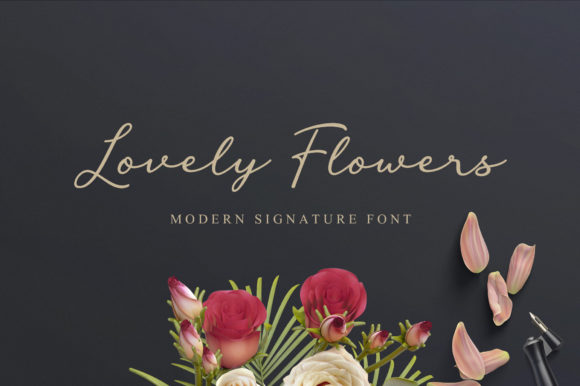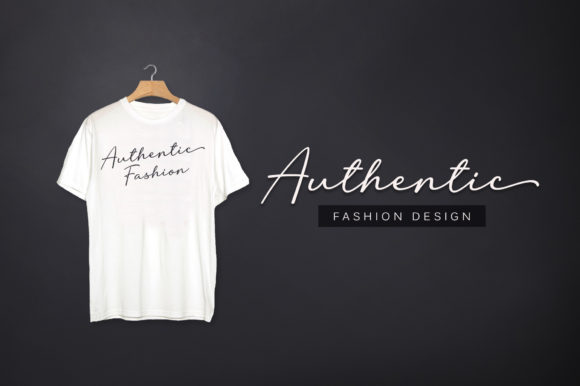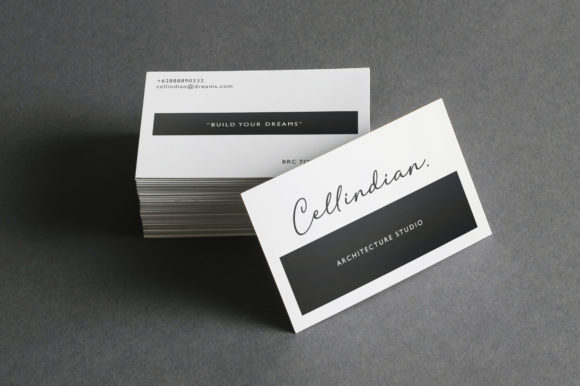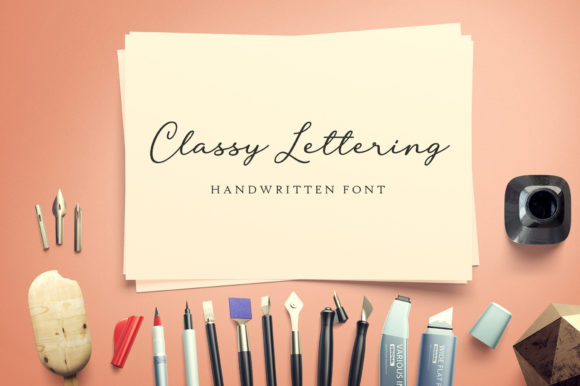
Lovely Flowers Font
About the Lovely Flowers Font
Get ready to be inspired by Lovely Flowers Font, a fresh and dynamic typeface for modern creators. Lovely Flowers is a relaxed and cursive script font. Not too thin and not too thick, balanced and varied, this font was designed to enhance the beauty of your projects. This font is PUA encoded which means you can access all of the glyphs and swashes with ease!
Lovely Flowers is ideally suited for projects requiring a touch of elegance and warmth, such as wedding invitations, greeting cards, or feminine branding. Its relaxed style works well in short text blocks on packaging or in headings for social media posts. However, avoid using it for body text or lengthy paragraphs; its cursive nature can hinder readability in extended use. Avoid using it in UI design where clear legibility is paramount.
Pairing Lovely Flowers with a clean sans-serif font like Montserrat or Lato provides a strong contrast and enhances readability, balancing the script’s fluidity with a modern feel. For a more traditional approach, consider pairing it with a serif font such as Playfair Display, creating a classic yet approachable aesthetic.
The overall personality of Lovely Flowers is friendly, romantic, and approachable, making it perfect for brands that wish to project a sense of charm and approachability.
Lovely Flowers Font Usage Examples
Lovely Flowers Font Example